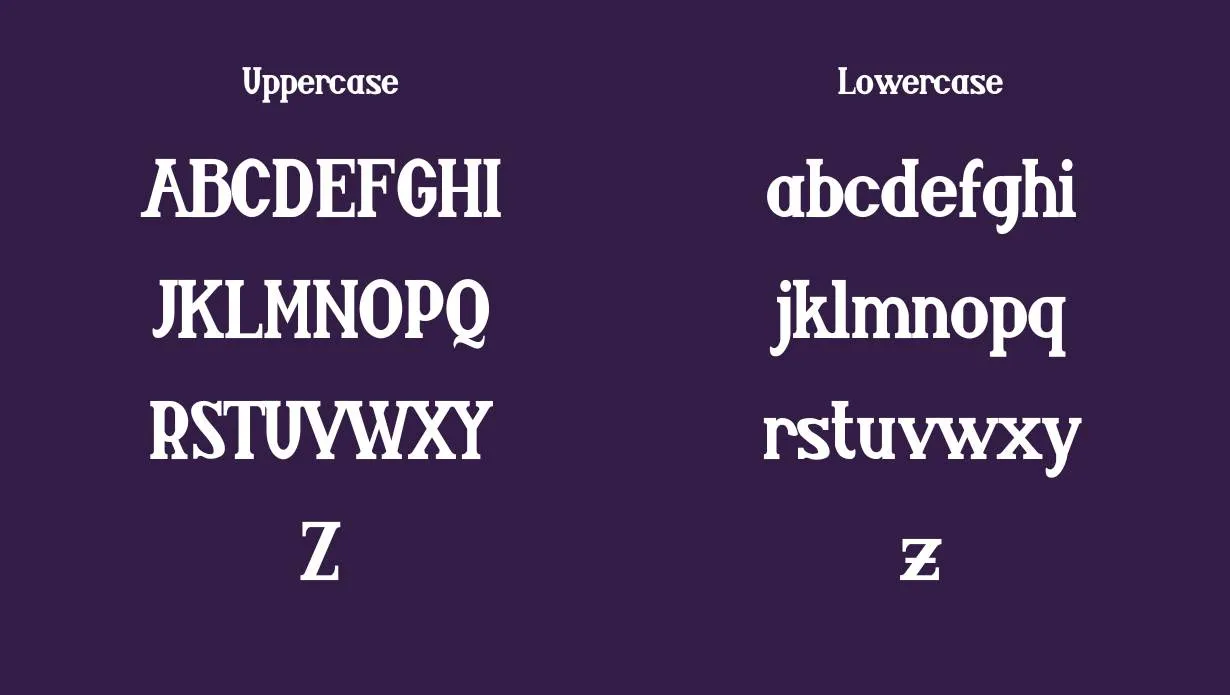
Jequitiranaboia Font is a wonderful typeface with bold style characters that have a high readability score perfect for any project. This typeface has taken inspiration from the display font family.
- Jequitiranaboia Regular
Jequitiranaboia Font Info
| Name | Jequitiranaboia Font |
| Designer | Matias Romero |
| Style | Display |